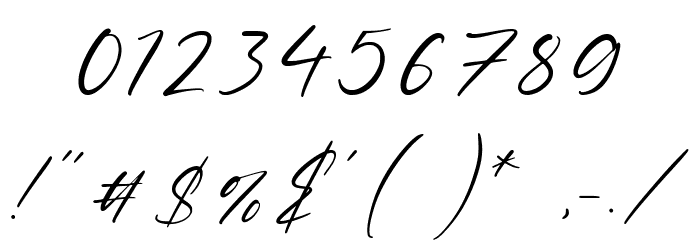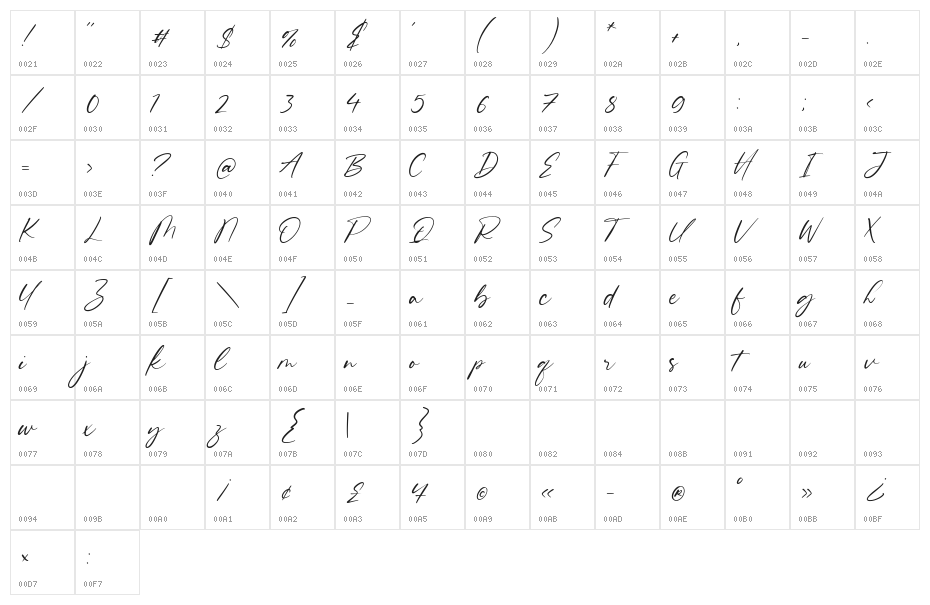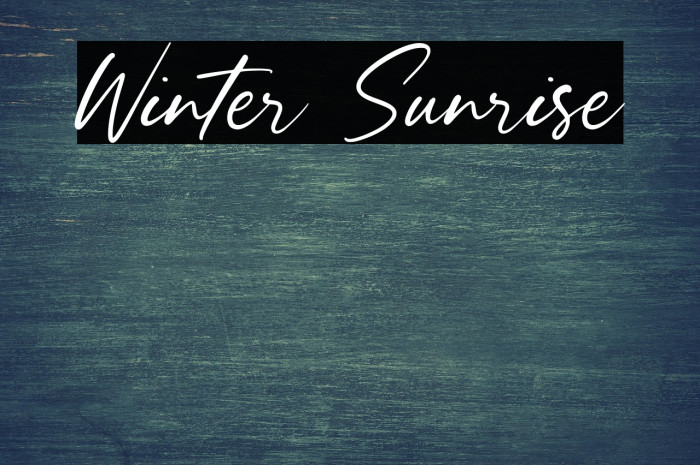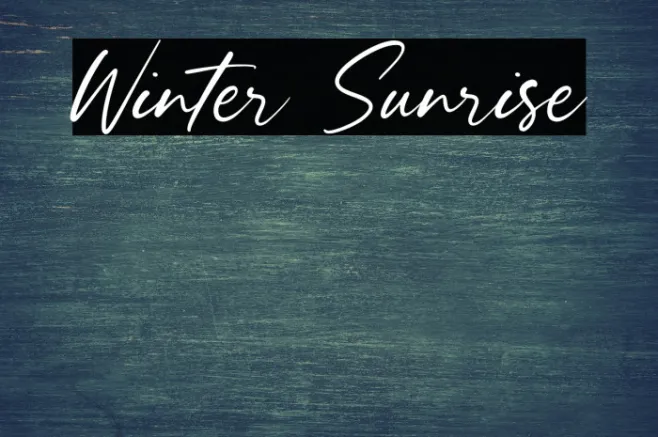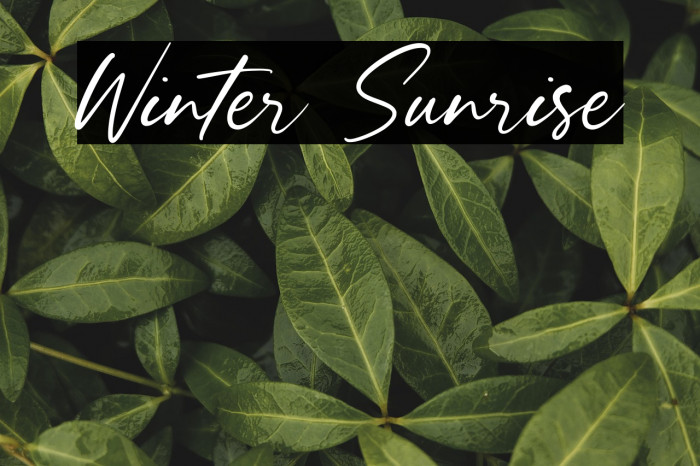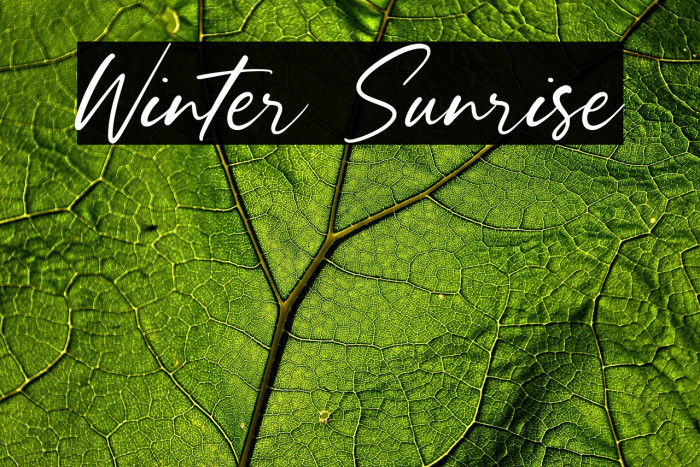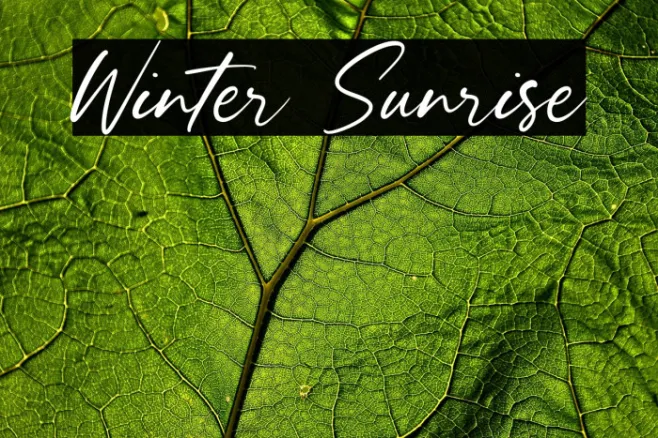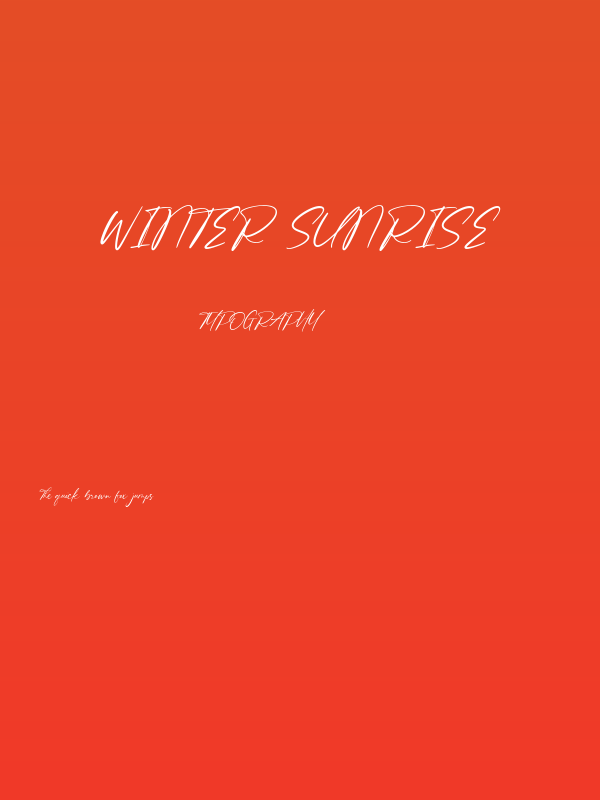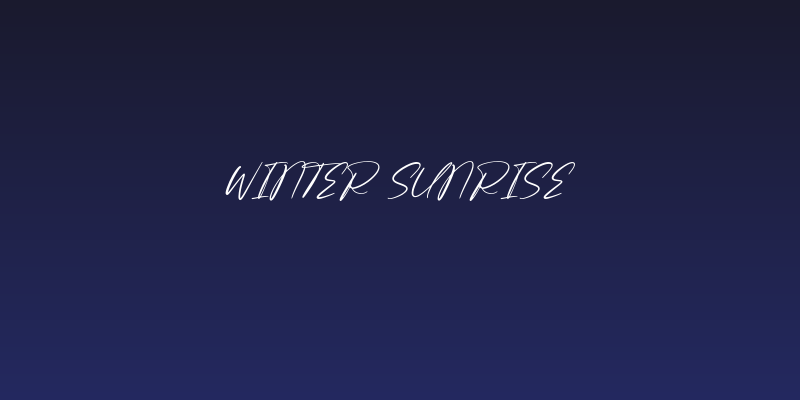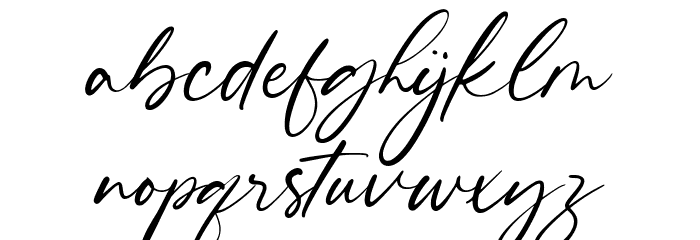
Winter Sunrise Font
Winter Sunrise Description
This elegant script font features a flowing, cursive style with a modern touch. The letters are connected smoothly, giving it a handwritten appearance that is both sophisticated and approachable. The uppercase letters are bold and slightly slanted, while the lowercase letters maintain a consistent flow with delicate loops and curves. The numerals are clear and easy to read, complementing the overall aesthetic. Special characters are included, maintaining the same fluid style, making this font versatile for various design needs.
| Use Case | Logos, Invitations, Social Media Graphics |
| Proposed Projects | Ideal for wedding invitations, greeting cards, branding, and social media graphics. |